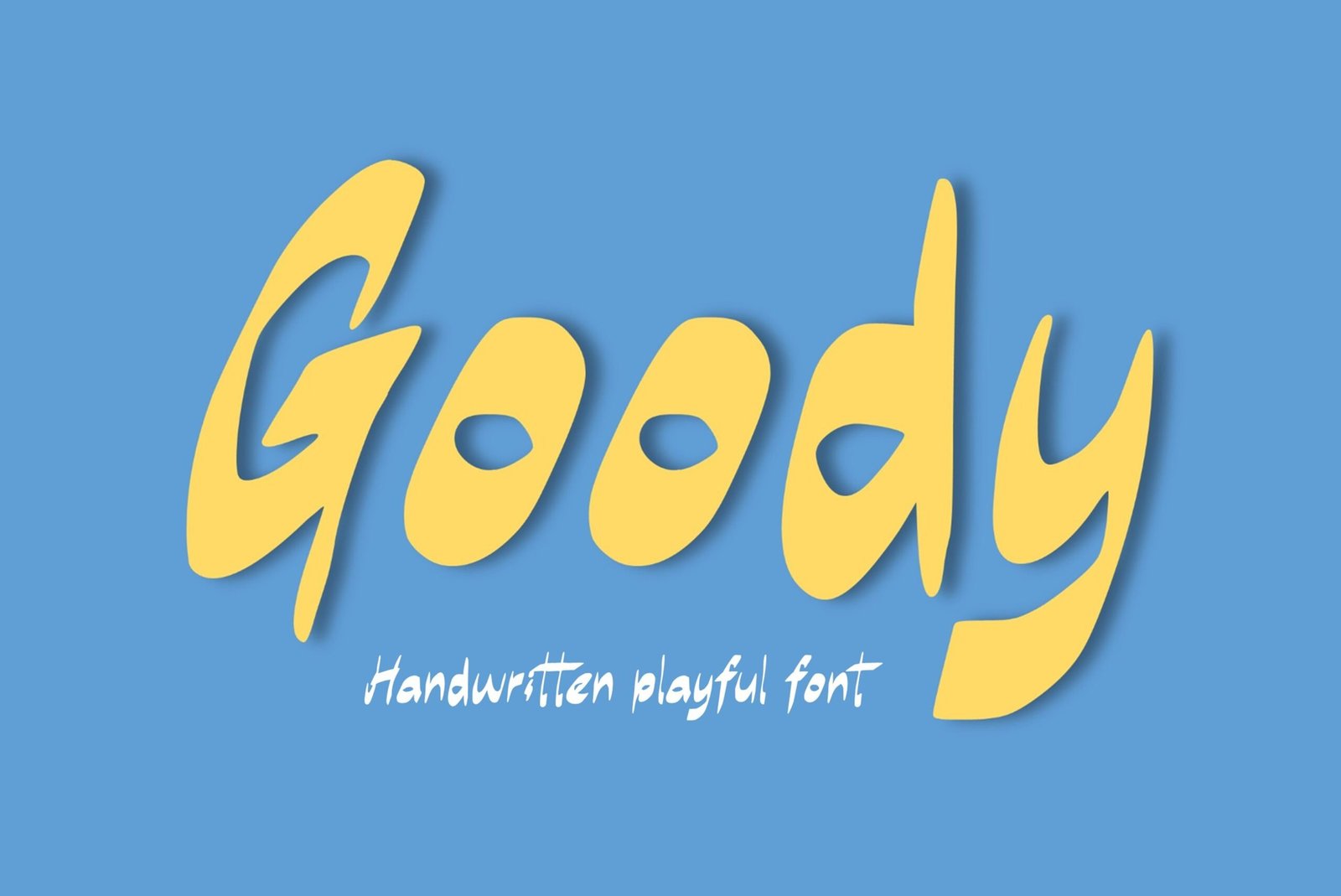
Goody Font
Handwritten playful font. “Goody”. Perfect for advertising and display purposes, including banners, book covers, shirts, posters, logos and much more!
Font includes all upper and lowercase letters, numbers, characters, and punctuation.